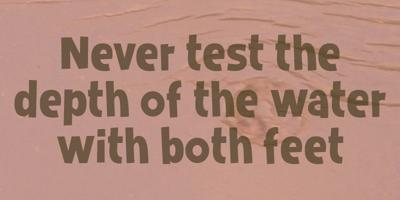
Pancake Batter Font
Pancake Batter Font is perfect for family restaurant branding, breakfast café signage, homestyle bakery identities, comfort food packaging, cozy diner menus, weekend brunch promotions, and wholesome food blog designs. Its warm letterforms make it ideal for any project that needs to convey comfort, homestyle cooking, and family-friendly dining experiences.
What makes Pancake Batter Font so exciting is its ability to capture the warmth and comfort of homemade breakfast through typography. Each character flows with the same cozy familiarity found in Sunday morning pancakes and family kitchen traditions, creating an immediate sense of home comfort and nostalgic warmth that resonates with audiences seeking authentic comfort food experiences and family dining memories.
Pancake Batter Font family includes light, regular, medium, bold, and syrup-drip variations, complete with breakfast-inspired decorative elements and comfort food flourishes that enhance its homestyle appeal and provide designers with comprehensive options for creating inviting family dining brand experiences.
The Pancake Batter Font Free Download gives designers access to a delightful tool for creating welcoming and appetite-inspiring designs. Whether you're developing a breakfast restaurant's visual identity, designing comfort food product packaging, or crafting family dining promotions, this typeface brings authentic homestyle character that makes customers feel like they're dining at grandma's kitchen table.
Restaurant professionals appreciate how Pancake Batter Font balances comfort authenticity with practical functionality. Its carefully crafted letterforms ensure excellent readability across both detailed breakfast menus and large storefront signage, making it suitable for everything from syrup bottle labels to highway billboard advertisements. The font's comforting character works beautifully across family dining establishments and casual breakfast venues.
For businesses celebrating comfort food, family traditions, and homestyle cooking, Pancake Batter Font offers the perfect typographic foundation. Its warm character appeals to families and comfort food enthusiasts while maintaining professional quality that restaurant chains require. The font's versatility makes it valuable for diners, bakeries, family restaurants, and any food business wanting to communicate through typography that embodies the timeless appeal of homemade comfort food and the cherished tradition of gathering around the breakfast table for delicious meals and precious family moments.